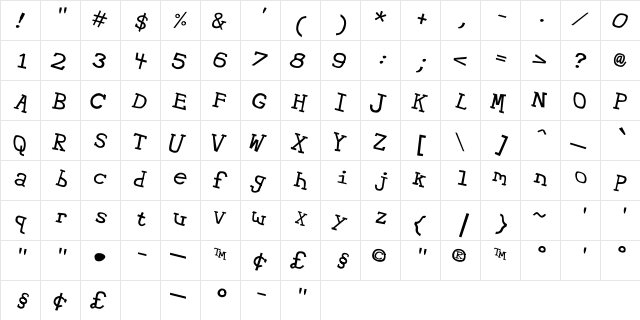
Hypewriter Italic
| Designer | Eric Perlin |
Design Context for Hypewriter Typeface
Hypewriter takes a measured approach to typography — its balanced proportions and neutral character make it a reliable workhorse for both digital and print work. Its italic angle brings a sense of urgency and motion to the letterforms.